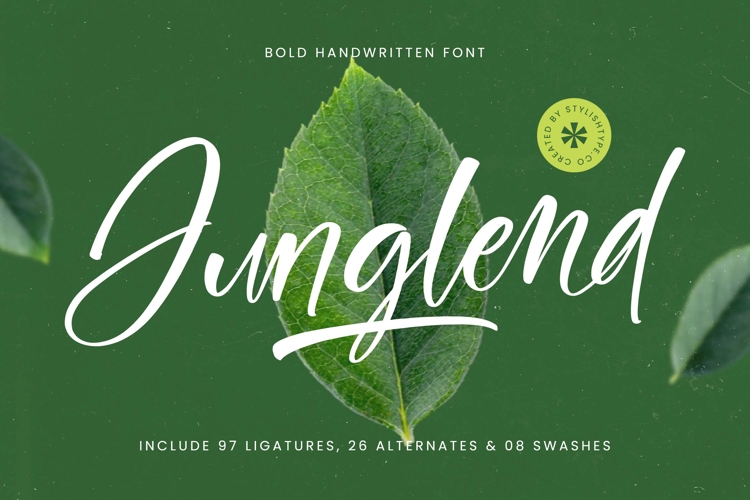
Junglend - Bold Handwritten Font
Captivate your audience with the distinctive charm of Font Junglend - Bold Handwritten Font Script. This exquisite typeface embodies the perfect fusion of authentic handwritten flair and bold, confident strokes, creating an instantly appealing and highly memorable visual identity. Its organic flow and natural elegance lend an approachable yet refined aesthetic, making it an ideal choice for designs that demand both personality and professionalism.
Experience unparalleled design flexibility with Font Junglend - Bold Handwritten Font Script. Crafted for ultimate creativity, this font comes packed with an impressive array of stylistic enhancements, including 97 meticulously designed ligatures, 26 unique alternates, and 08 elegant swashes. These extensive features allow for endless customization, ensuring your typography always looks fresh, dynamic, and truly bespoke.
Font Junglend - Bold Handwritten Font Script is perfectly suited for projects requiring a touch of personalized elegance and warmth. It is ideal for luxury branding, bespoke product packaging, stylish invitations, eye-catching social media graphics, captivating editorial design, and sophisticated website headers. Its versatility promises an engaging and authentic user experience across diverse applications.